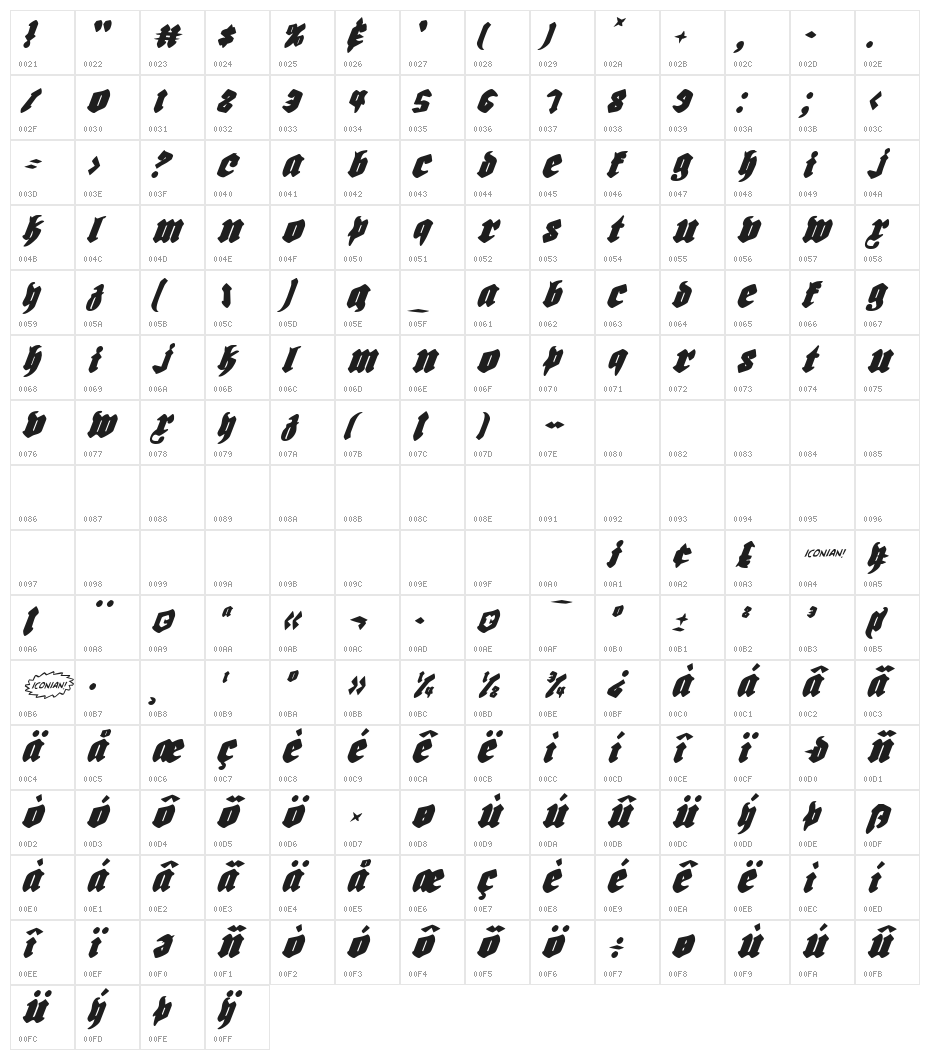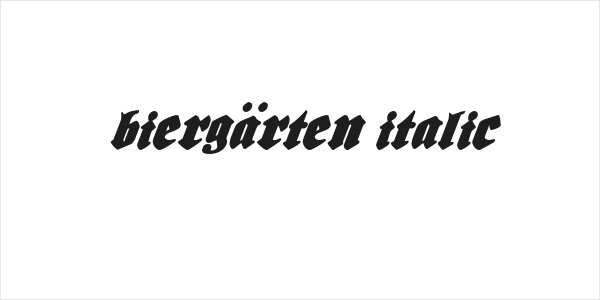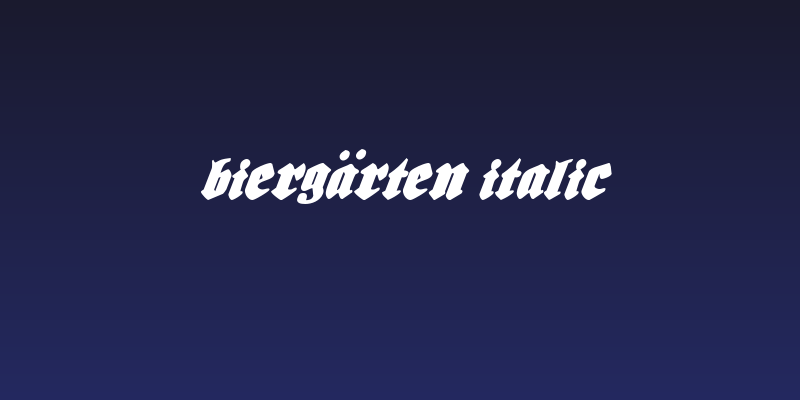
Biergärten Italic Font
Biergärten Italic Description
This font features a bold and dramatic blackletter style with a distinct italic slant, giving it a dynamic and energetic appearance. The characters are heavily stylized with sharp, angular lines and intricate details that evoke a sense of historical elegance. The uppercase and lowercase letters maintain a consistent design, with the lowercase letters exhibiting a slightly more condensed form. The numerals are equally bold and follow the same stylistic cues as the letters, ensuring a cohesive look across all characters. The special characters are uniquely crafted, adding to the font's overall decorative appeal. This font is perfect for projects that require a touch of vintage charm and sophistication.